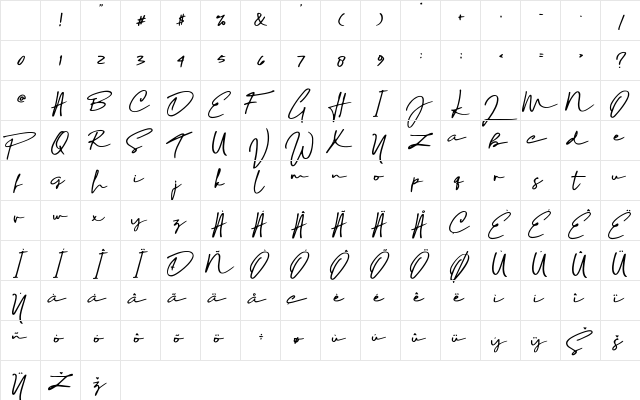
Complete Sophia Bella DEMO Signature glyph index. Displaying only characters natively supported by Sophia Bella DEMO Signature font.
Sophia Bella DEMO is a composed and adaptable typeface that performs quietly and consistently across a wide range of design contexts.